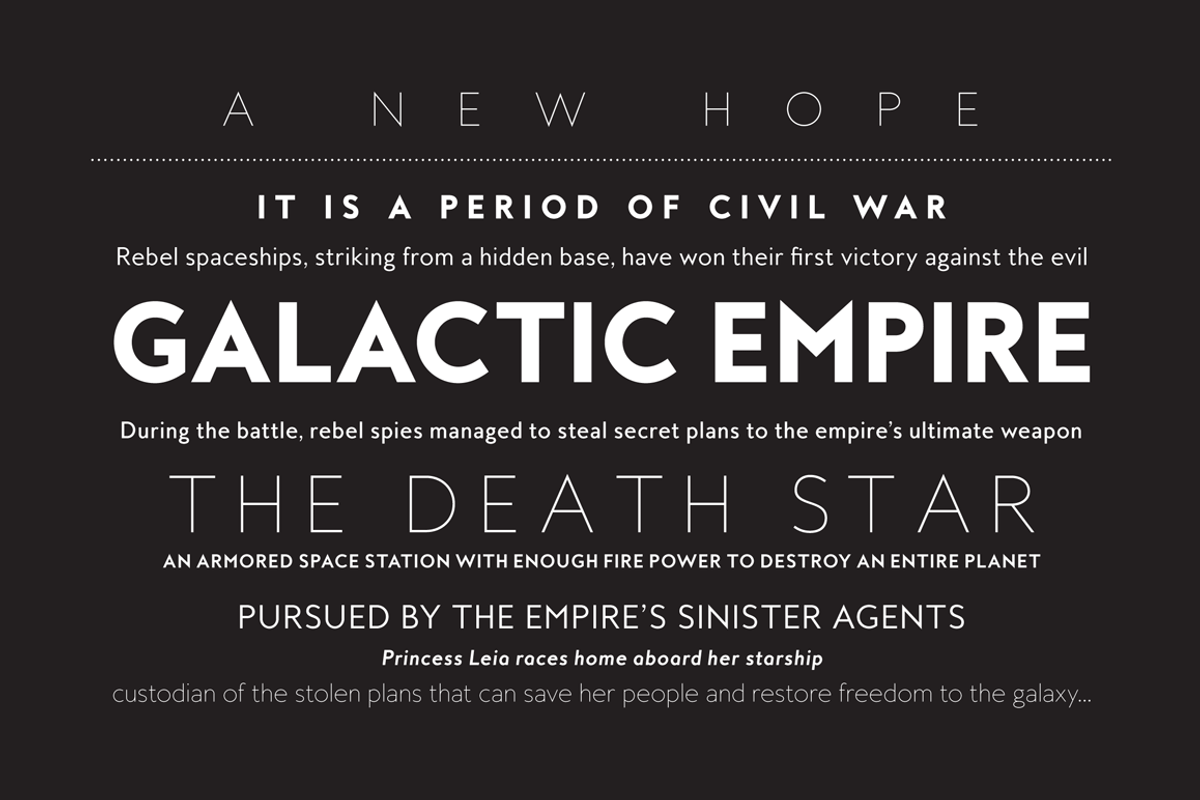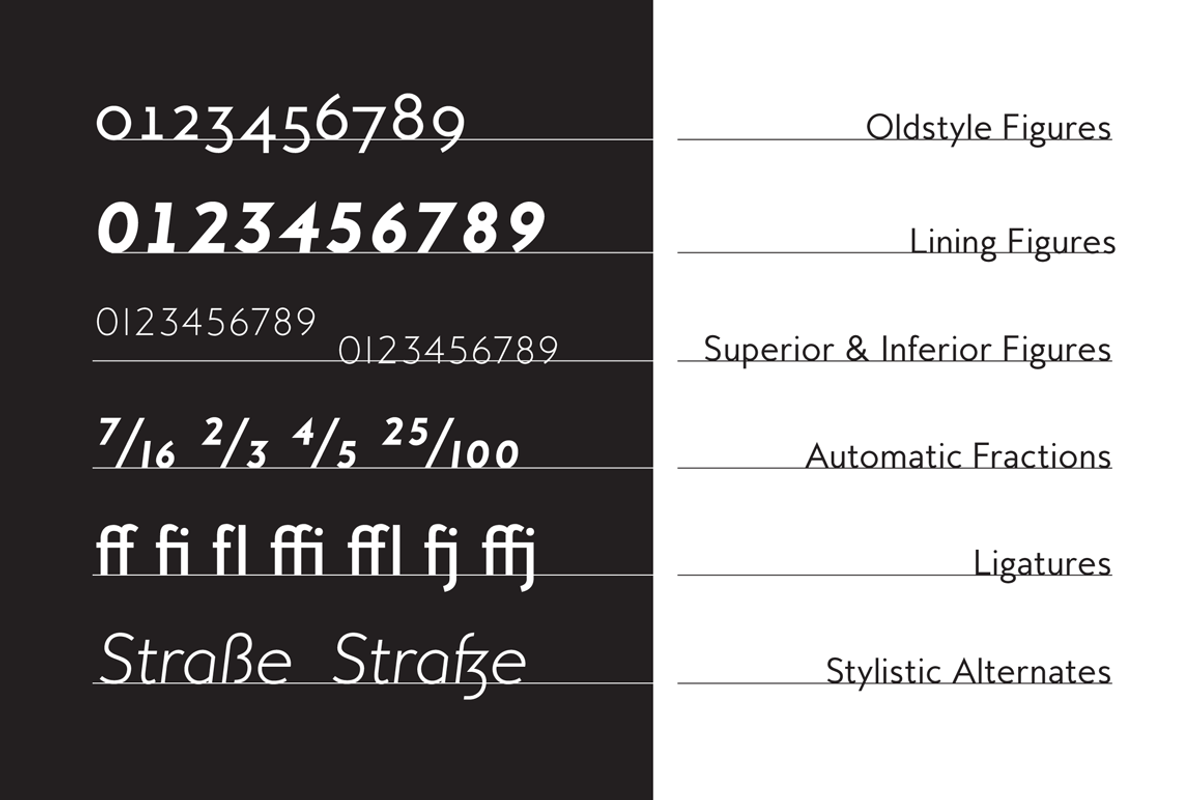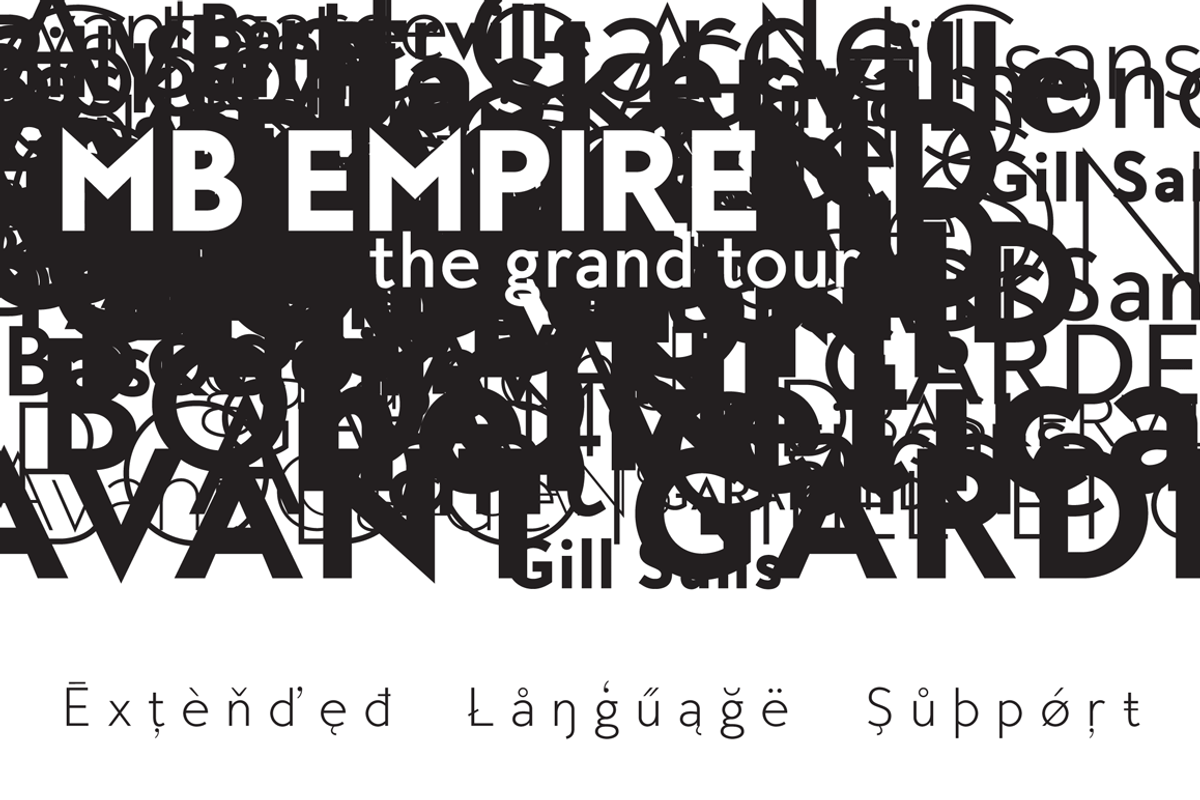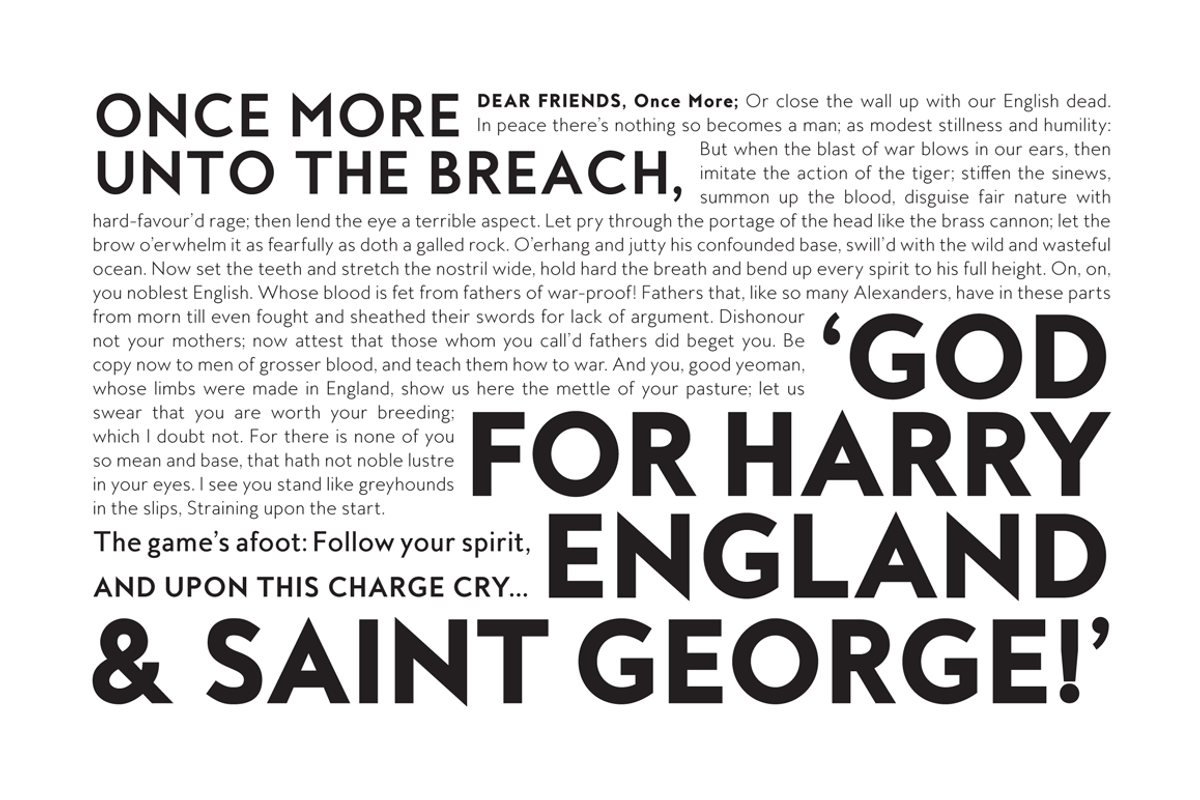
MB Empire
MB Empire by Ben Burford Fonts is a font selected for branding, posters, packaging, typography.
MB Empire by Ben Burford Fonts fits naturally into Branding, posters, packaging, typography.